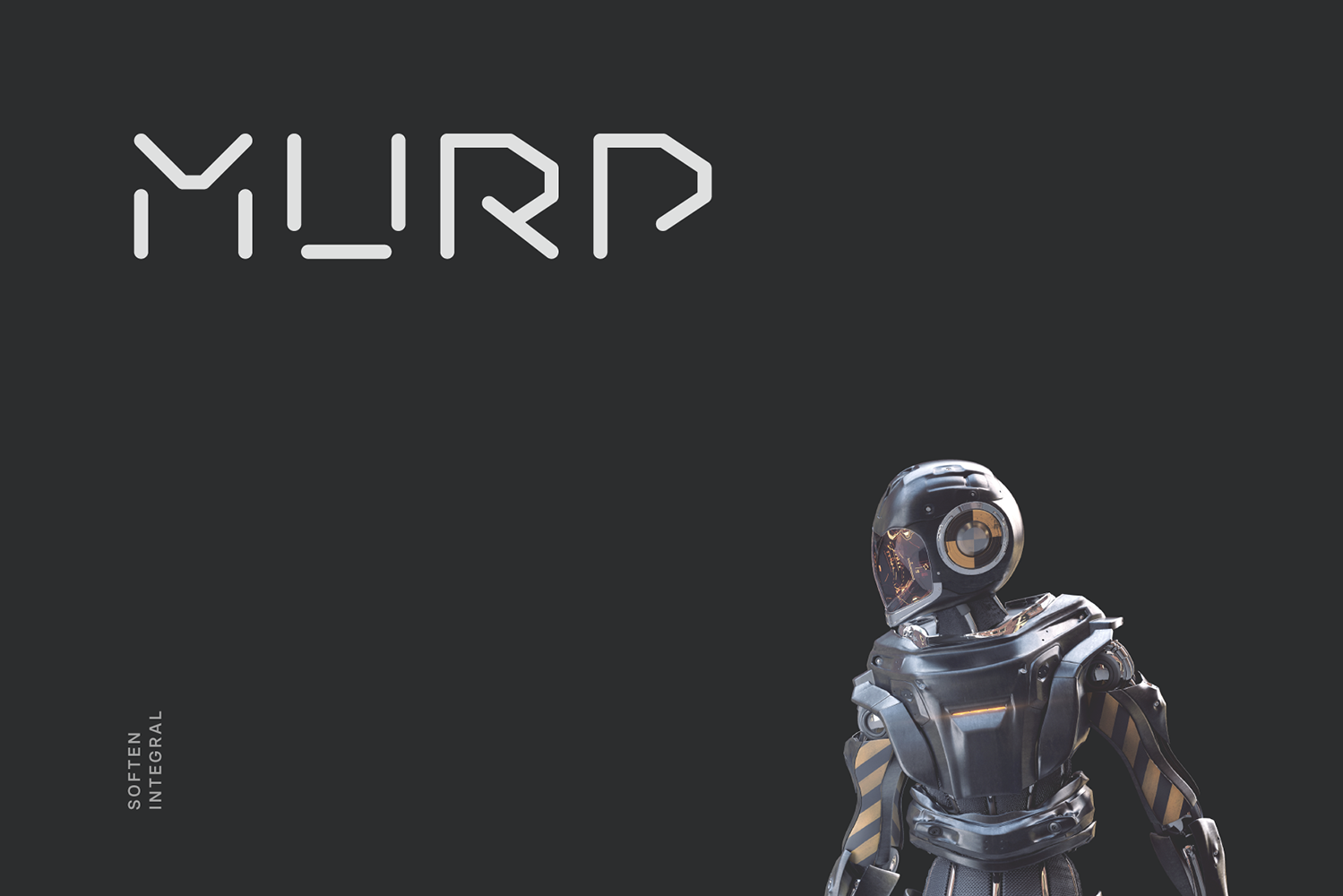
Murp Futuristic Cyber Font
Murp is a soften integral restraint tech sans apt for headline, editorial, branding, packaging, printed materials and typographic applications. Ultra modern character blend with simplicity of smooth rigid curves, subliminal contour and monoline interpretation introduced futurism sensuality through restraint form. 150+ glyphs with ligatures and fractions provided in opentype .otf and .woff format.